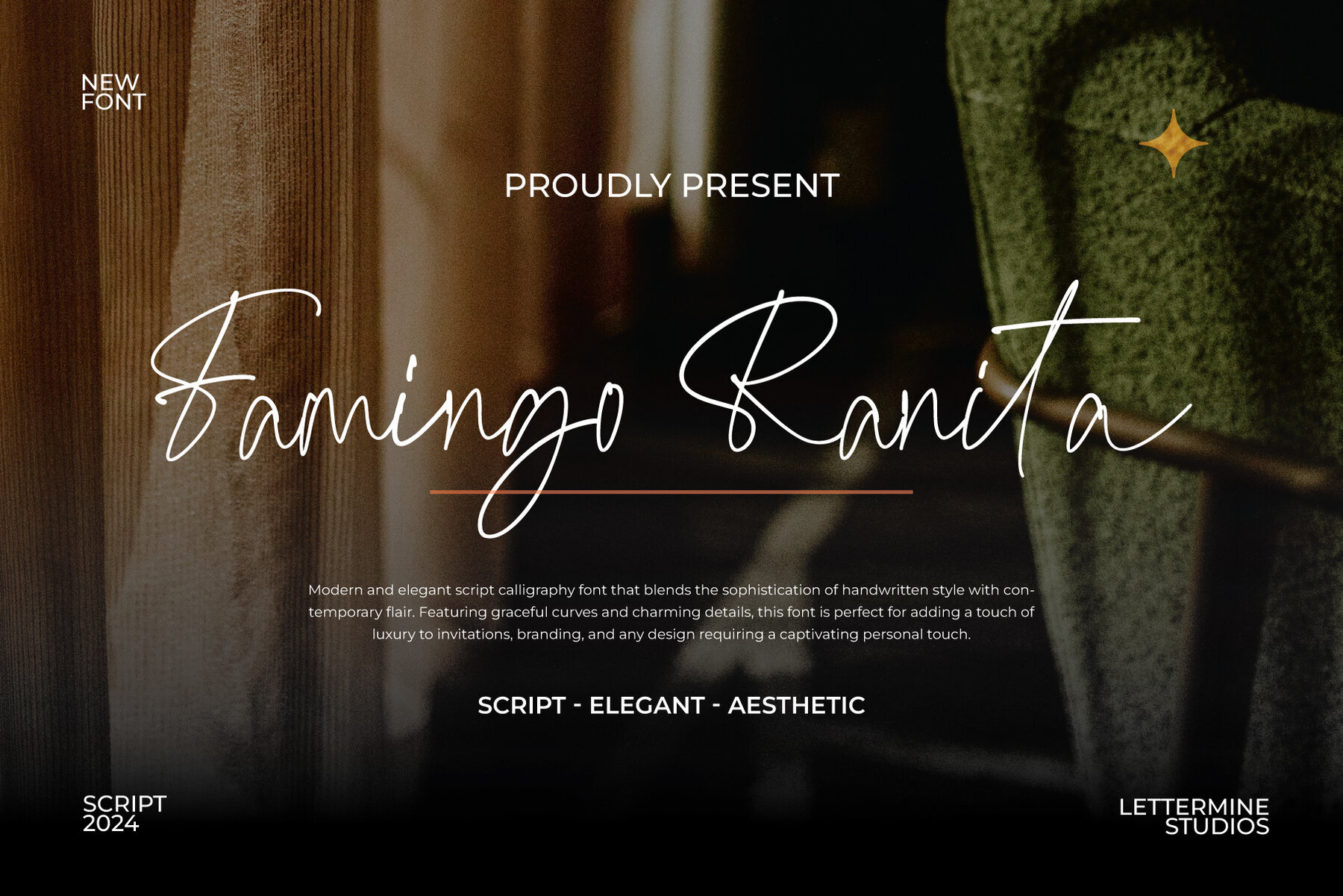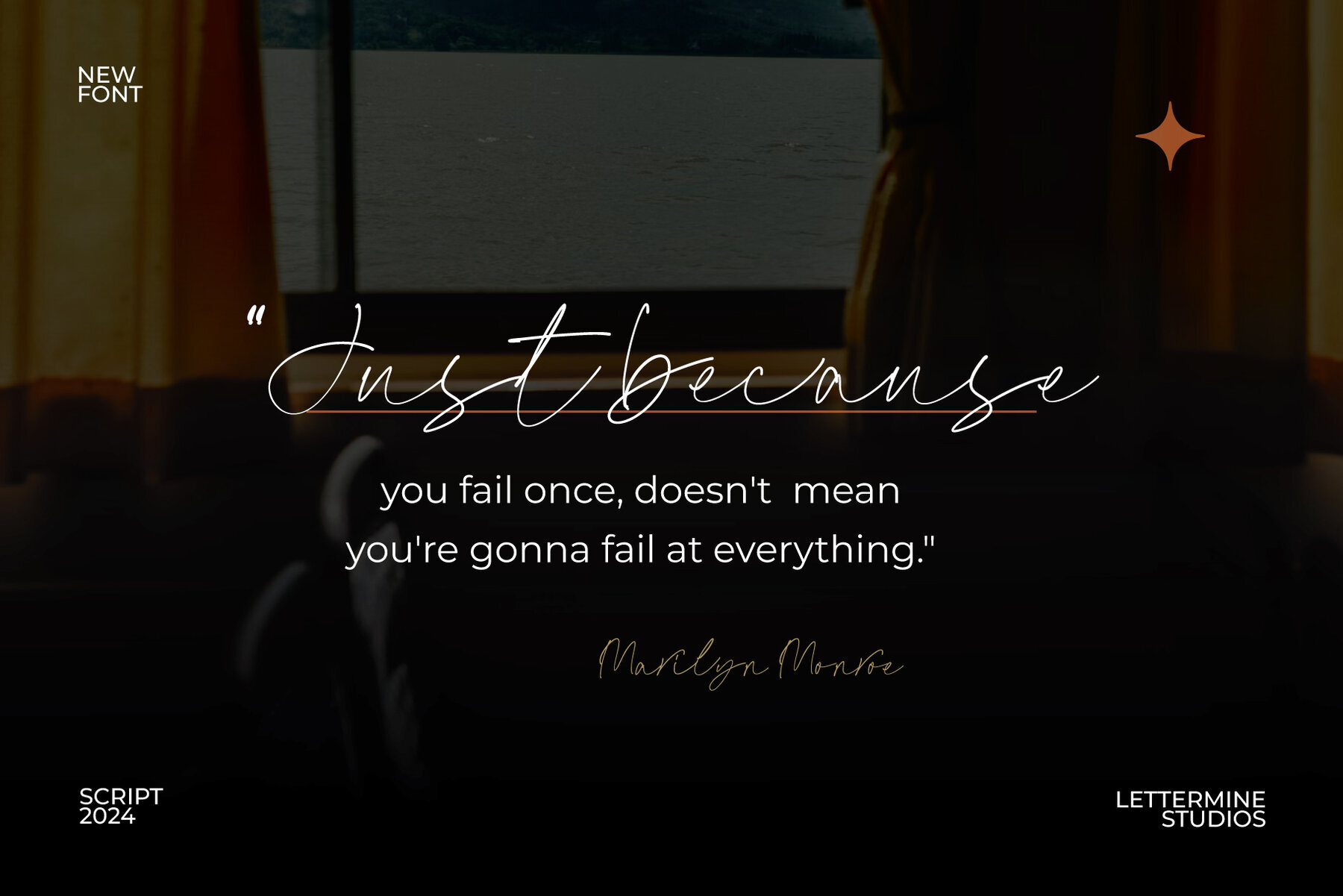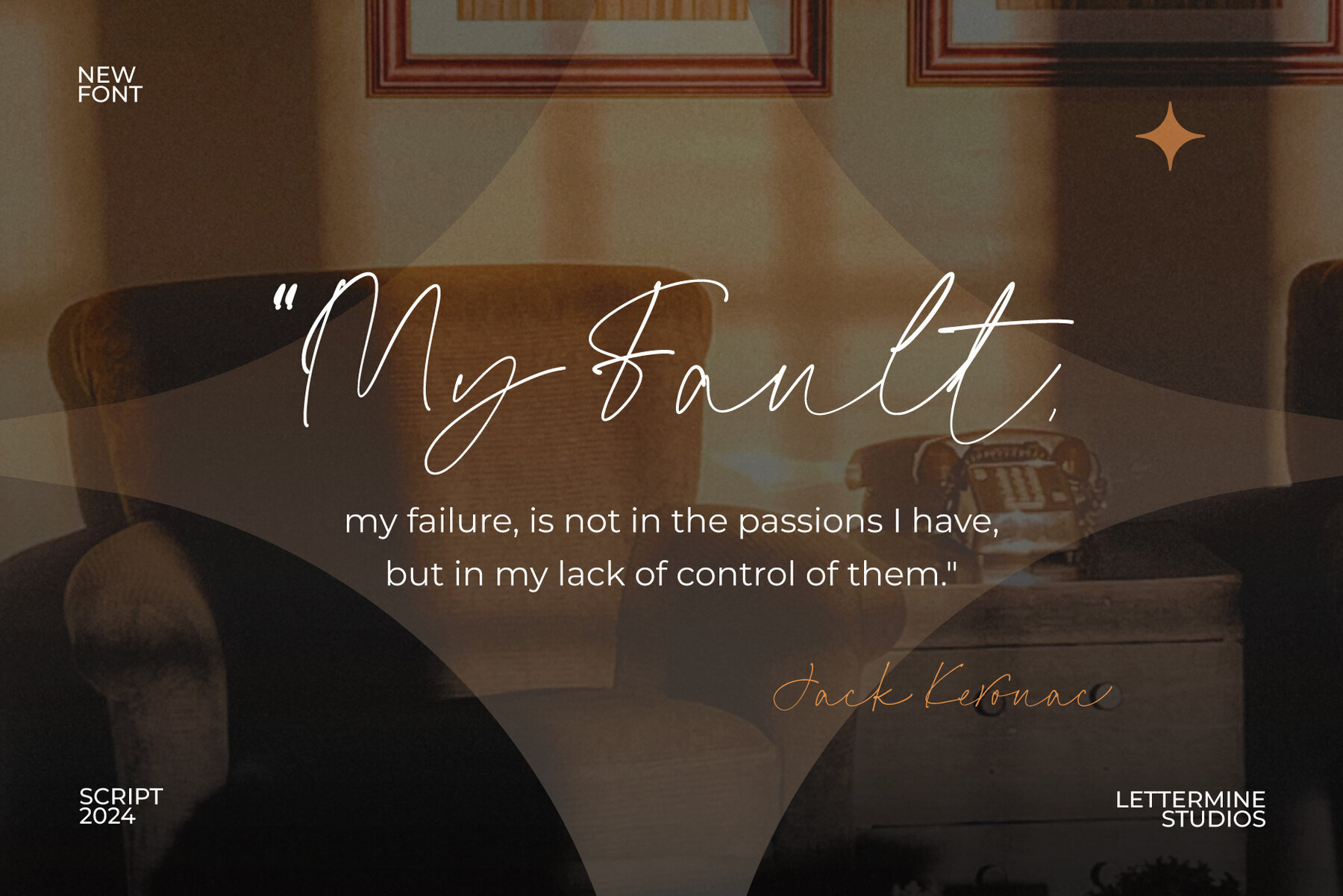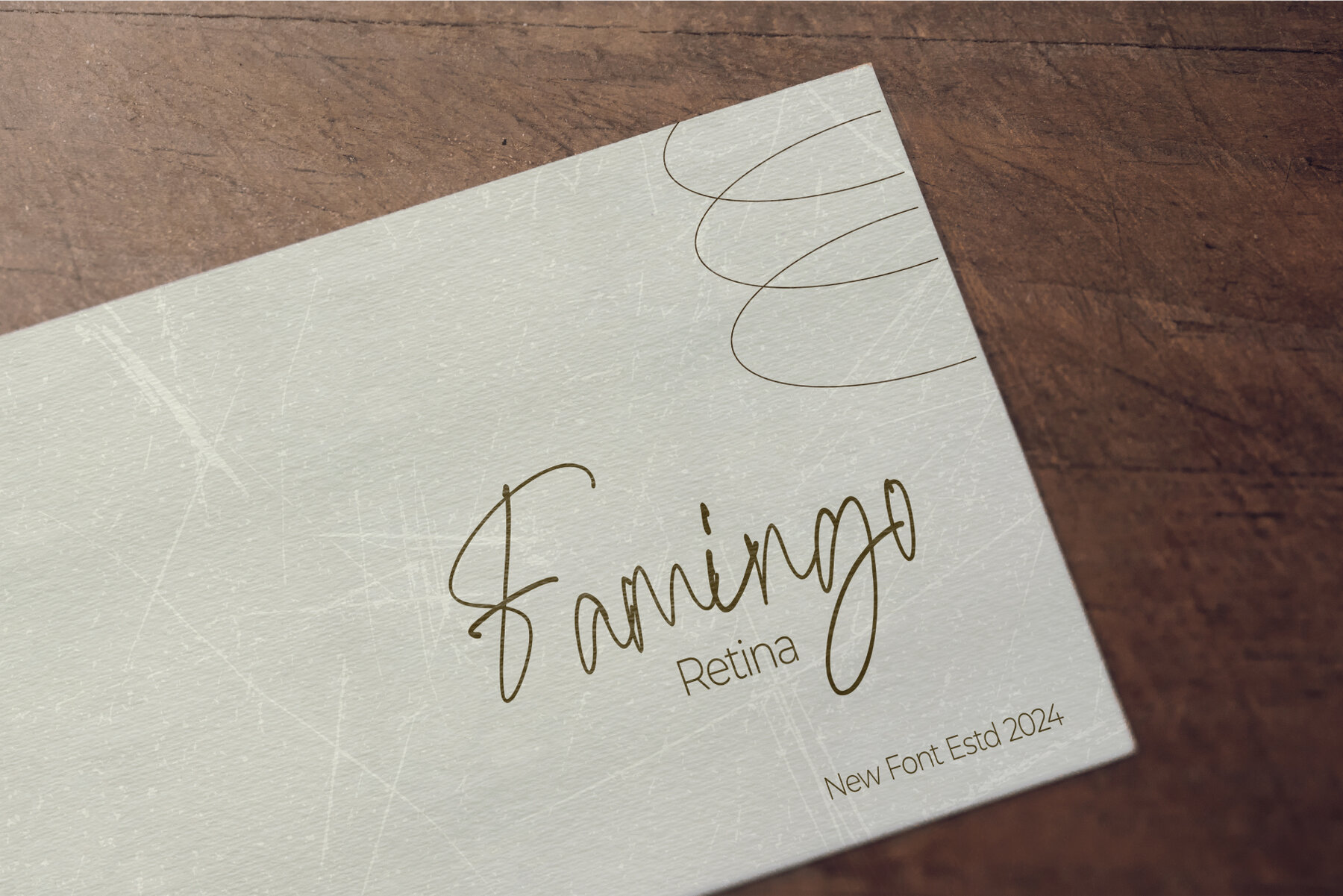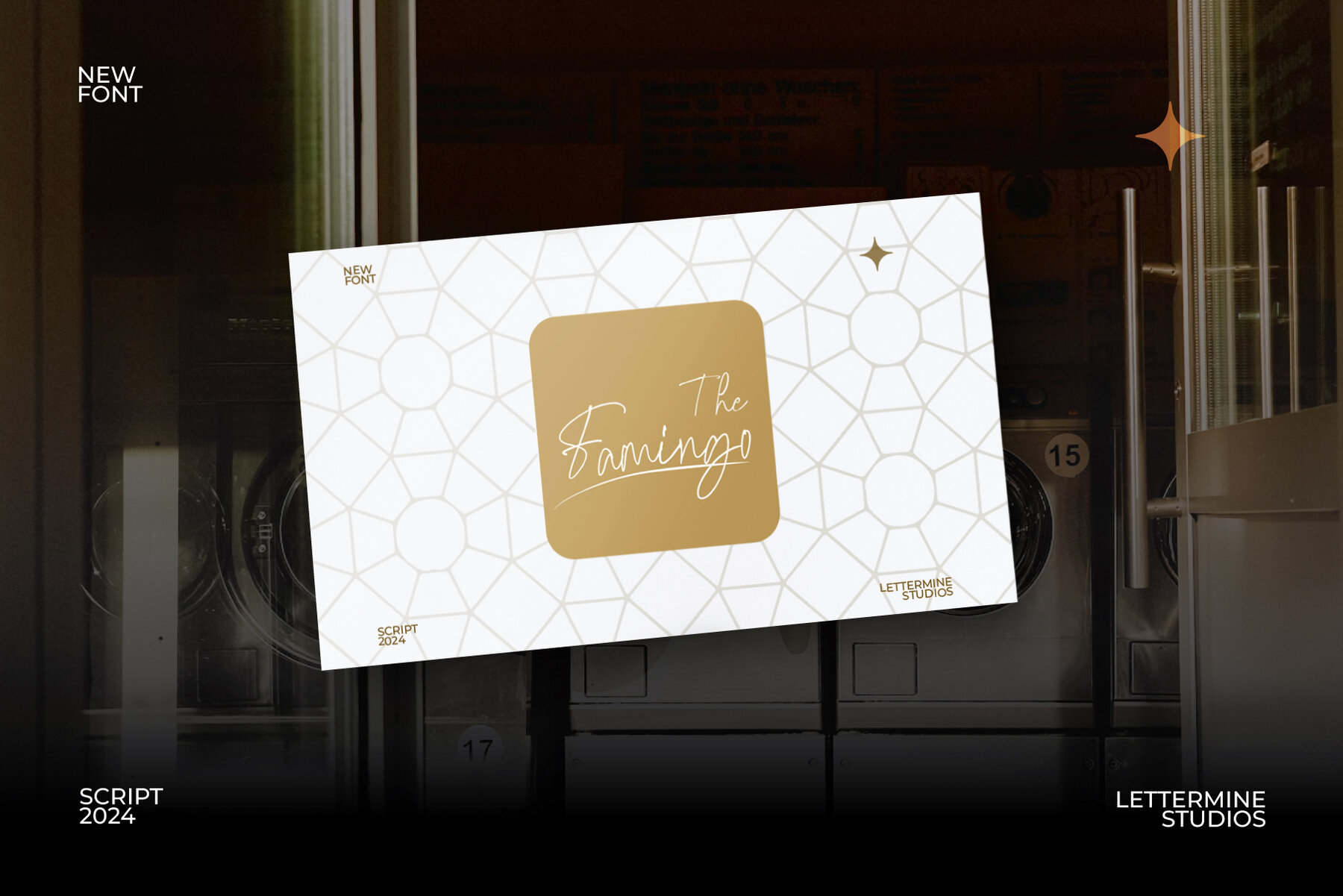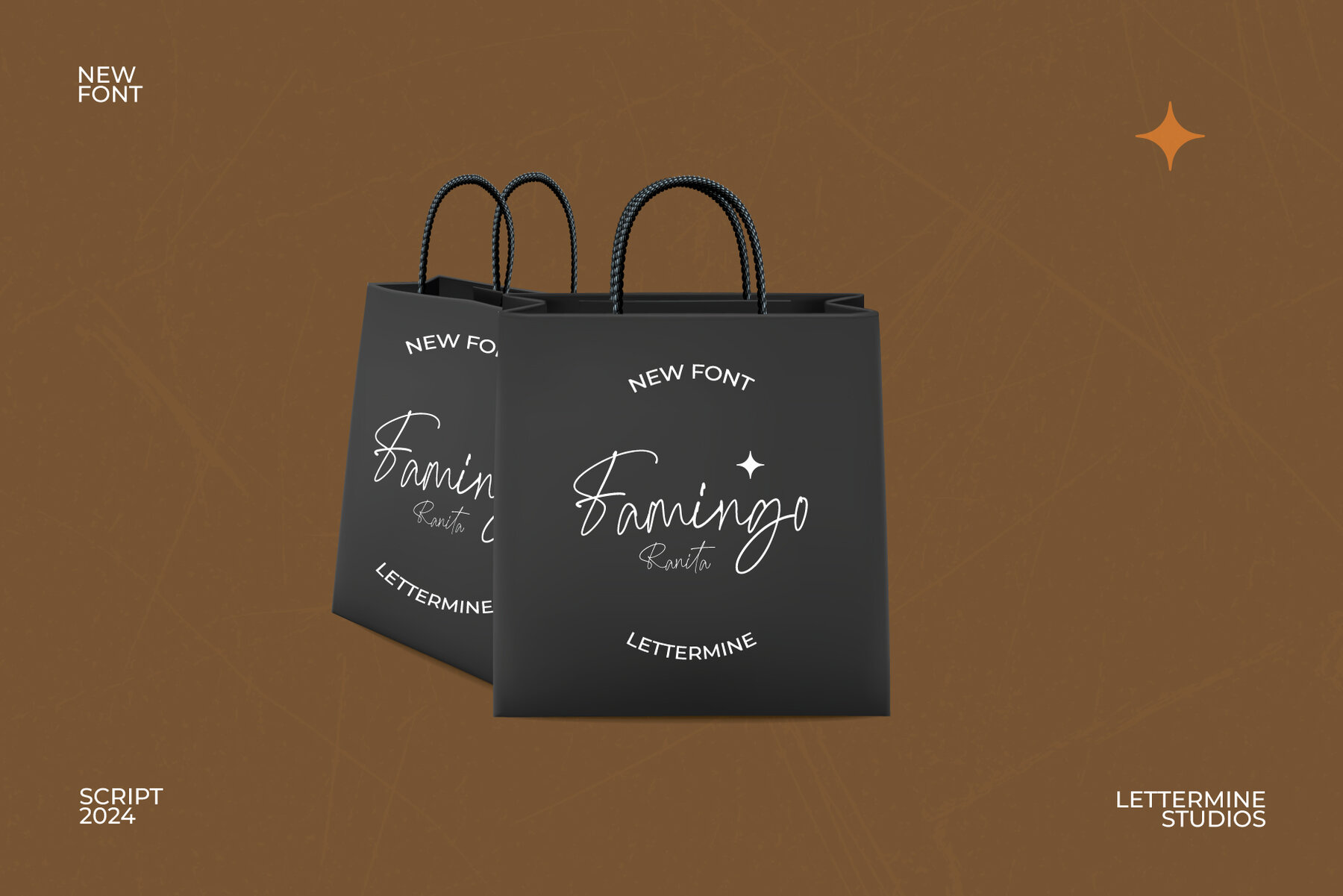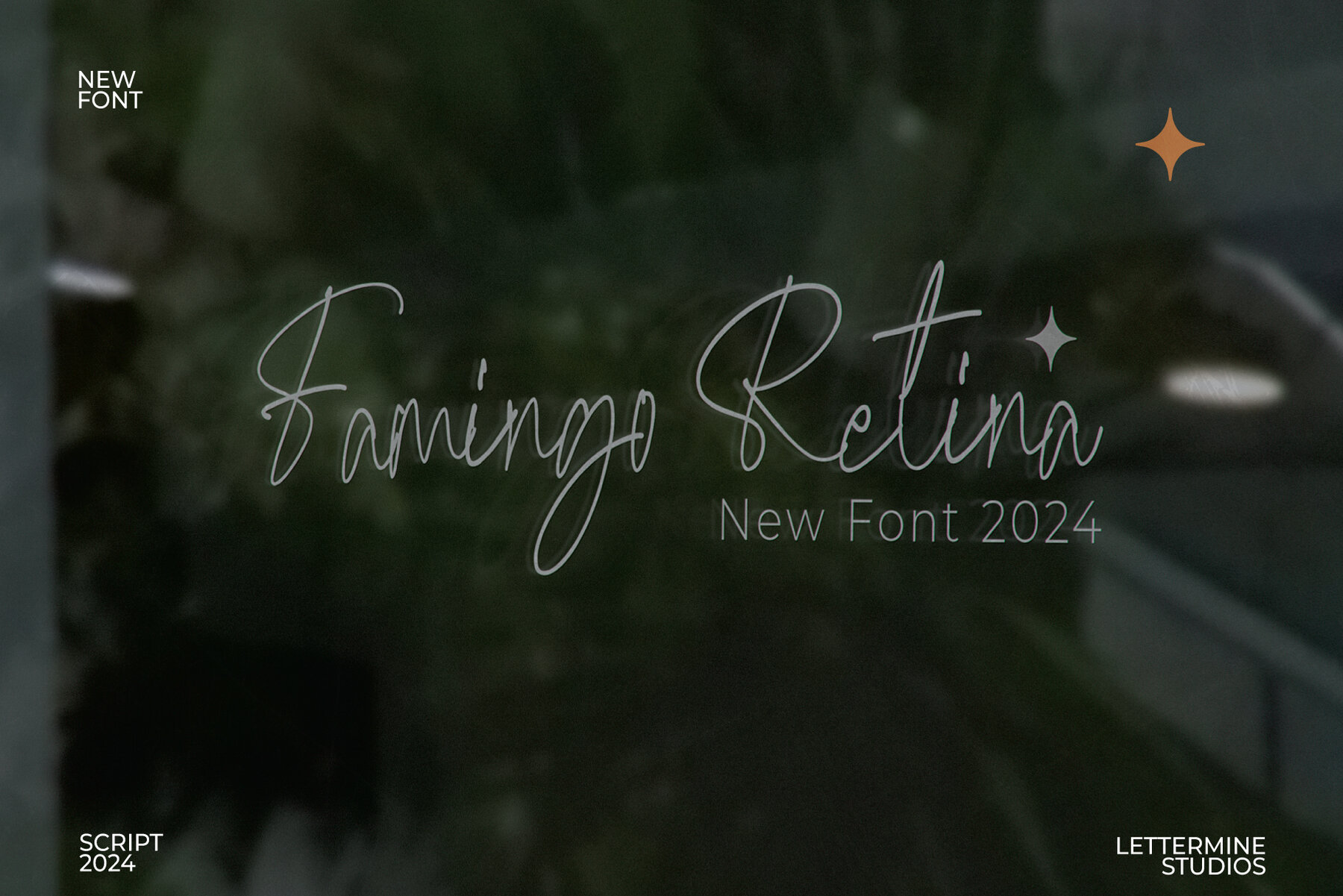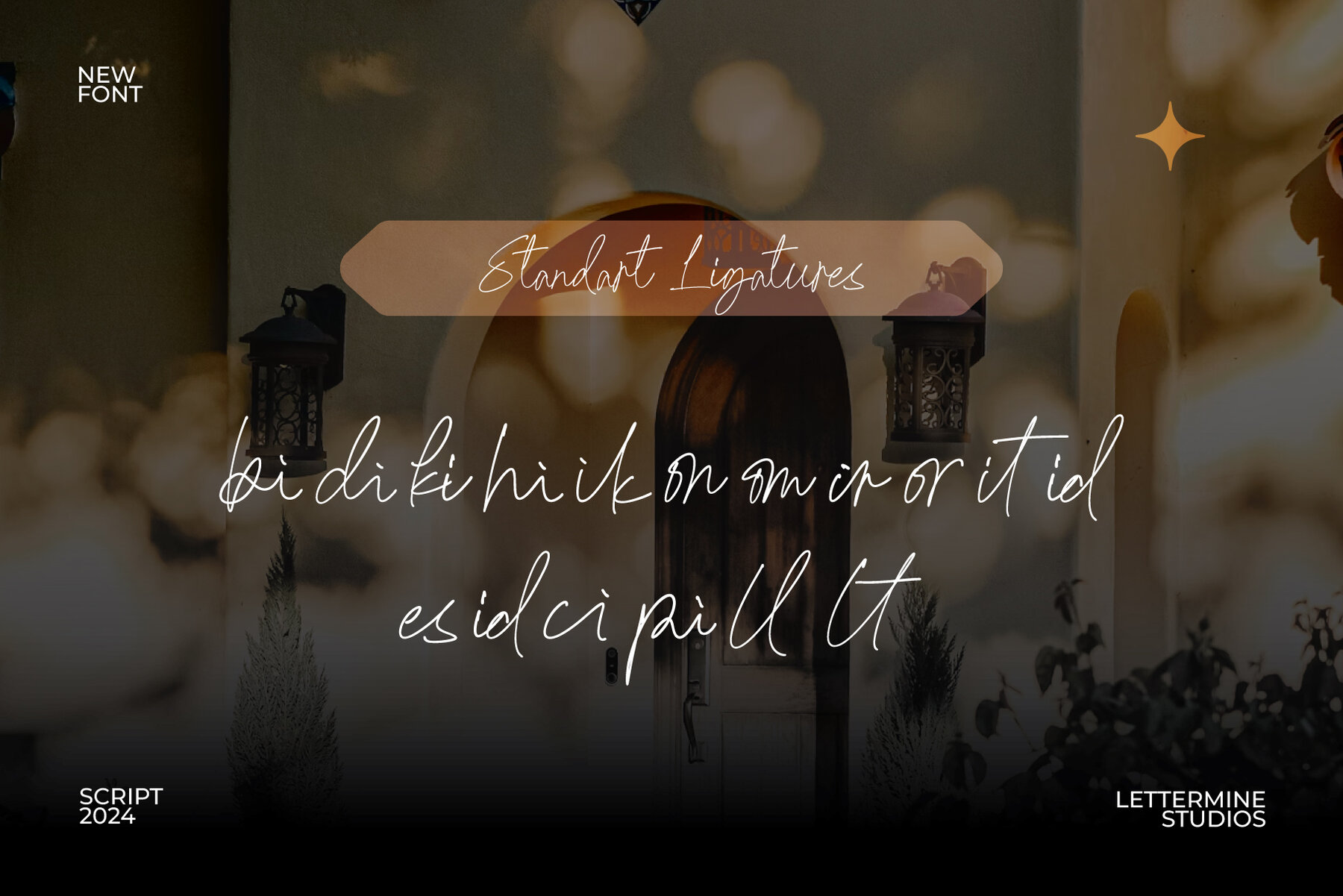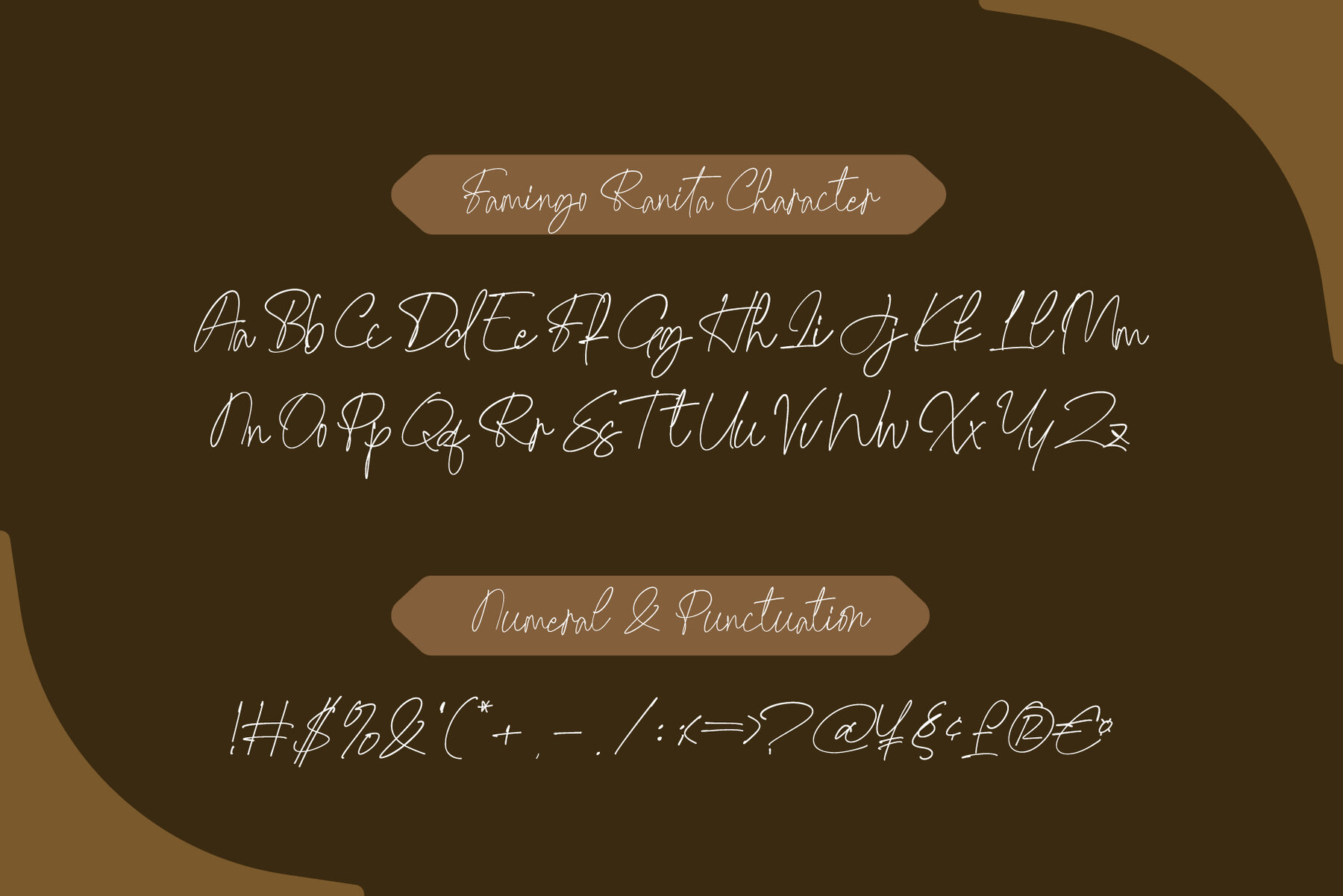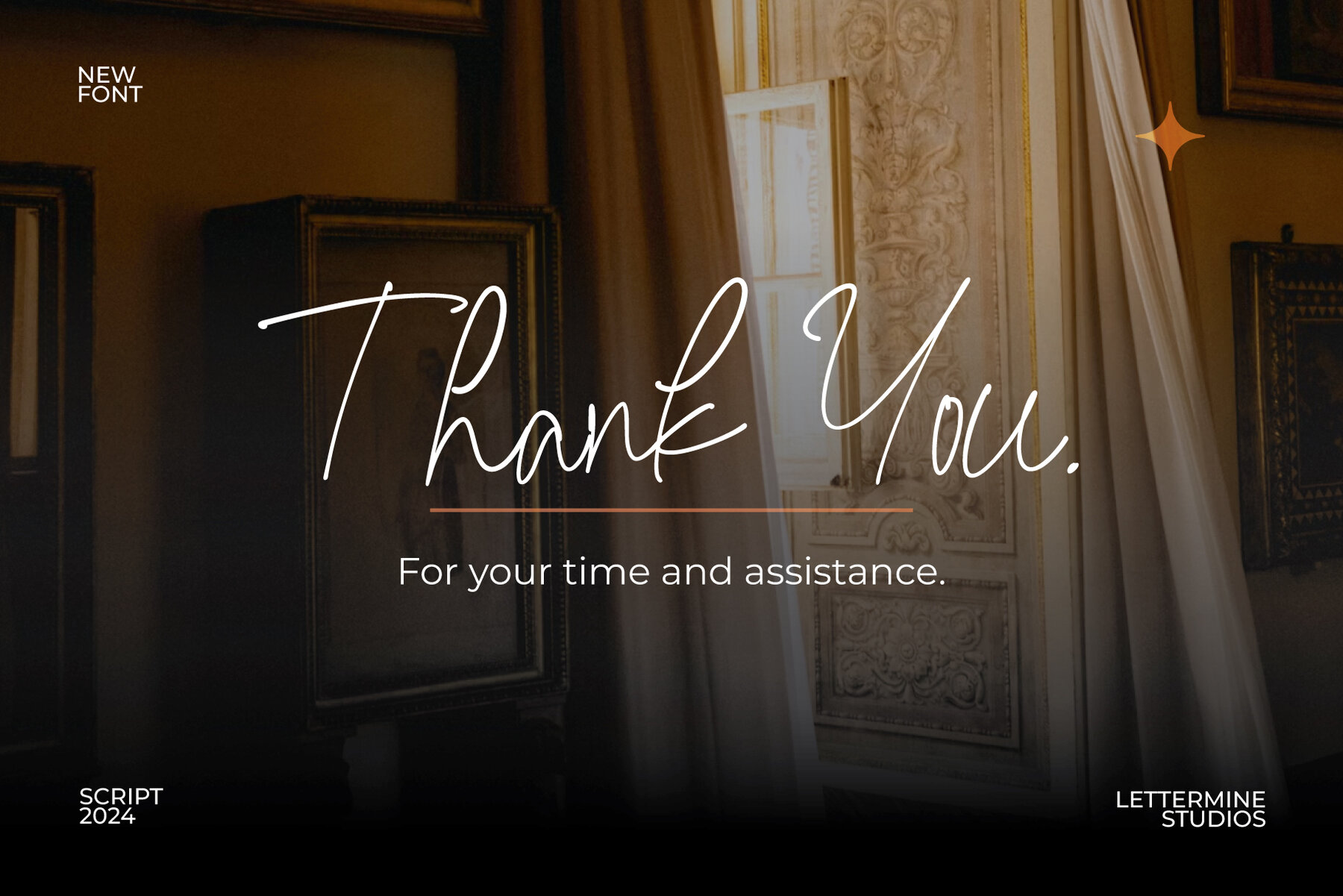
Famingo Ranita Font
Famingo Ranita is a graceful and refined script font that adds a touch of elegance to any design. With smooth curves and stylish alternates, it's perfect for making your projects feel sophisticated and polished. Features: Perfect for: Copyright © 2024 by Lettermine